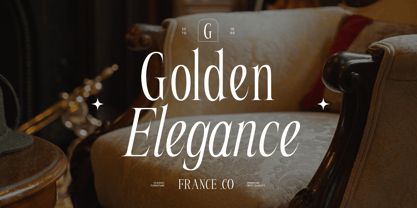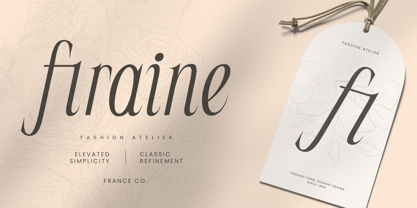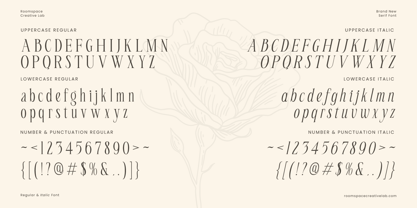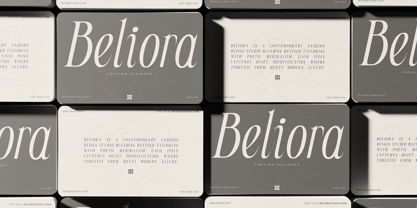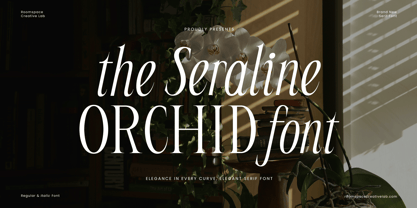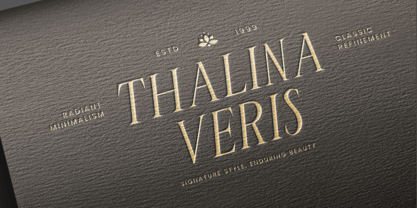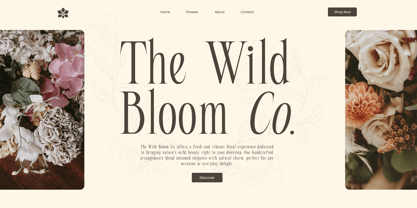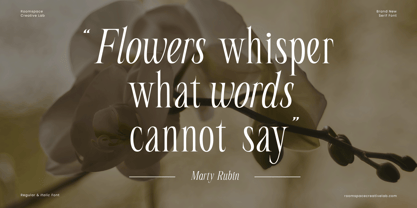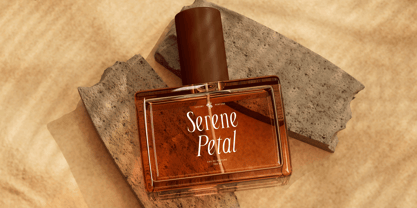
Seraline Orchid
The Seraline Orchid Font Family was designed by Bakhrudin Ja'far and published by Jafar07. Seraline Orchid contains 2 styles and family package options. More about this family
Seraline Orchid is a modern display serif font inspired by the elegance of botanical forms and classic editorial aesthetics. Its refined curves, balanced contrast, and beautifully crafted ligatures create a sense of sophistication and timeless charm. Designed for both digital and print applications, Seraline Orchid delivers exceptional readability and visual harmony. Perfect for luxury branding, fashion magazines, packaging, and high-end design projects, this typeface adds a graceful rhythm and editorial flair to every composition.